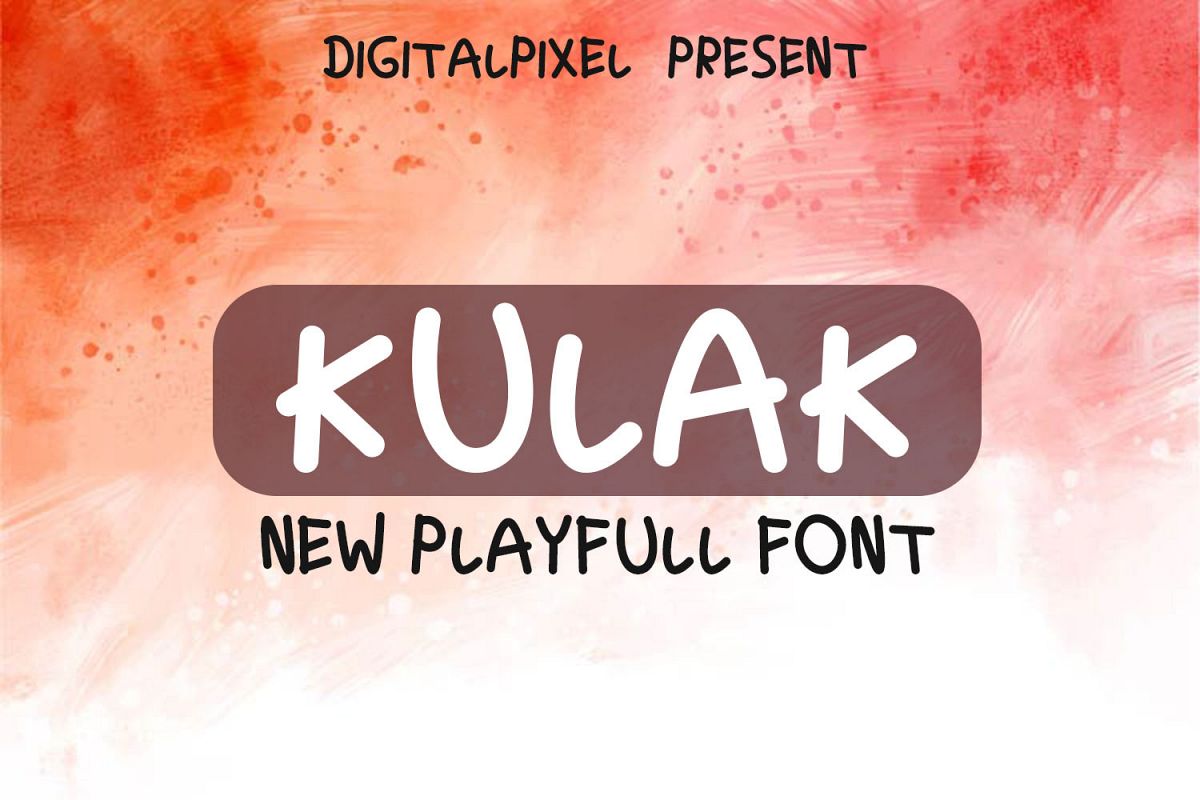
Kulak Display Playfull Font
Kulak is a playful display font. Suitable for logos, packaging designs, banners, posters, merchandises, tshirts, books or any design needs a display font.